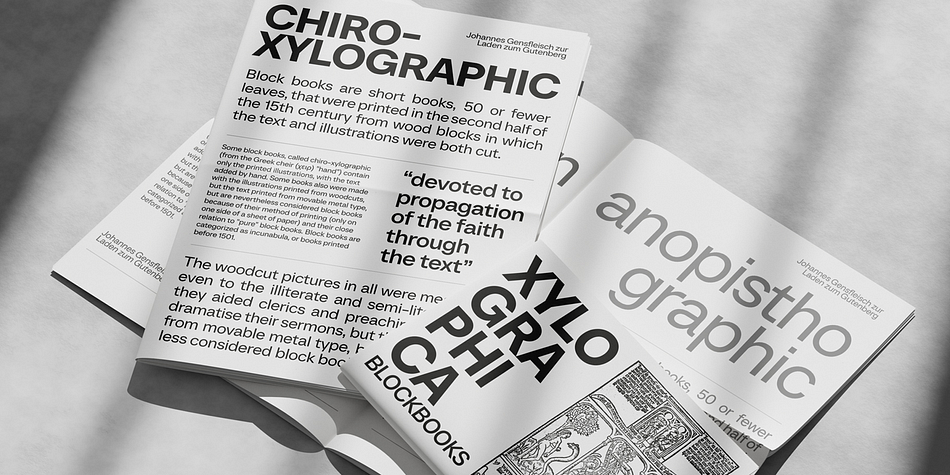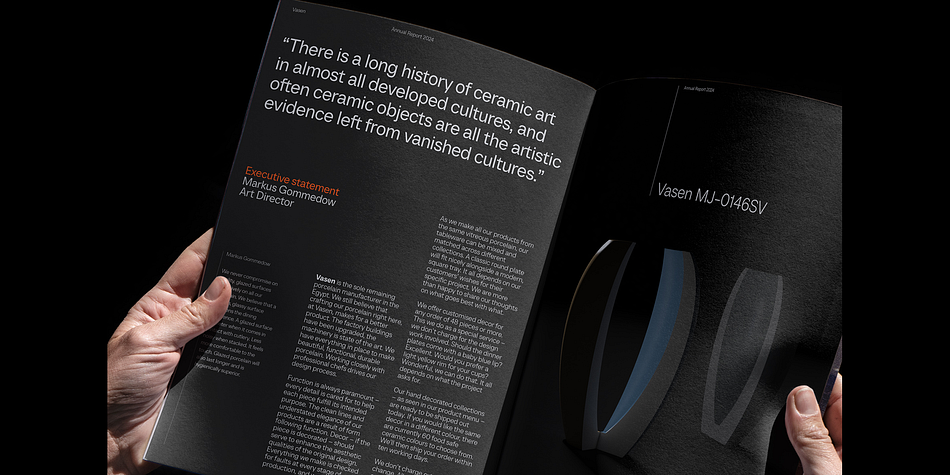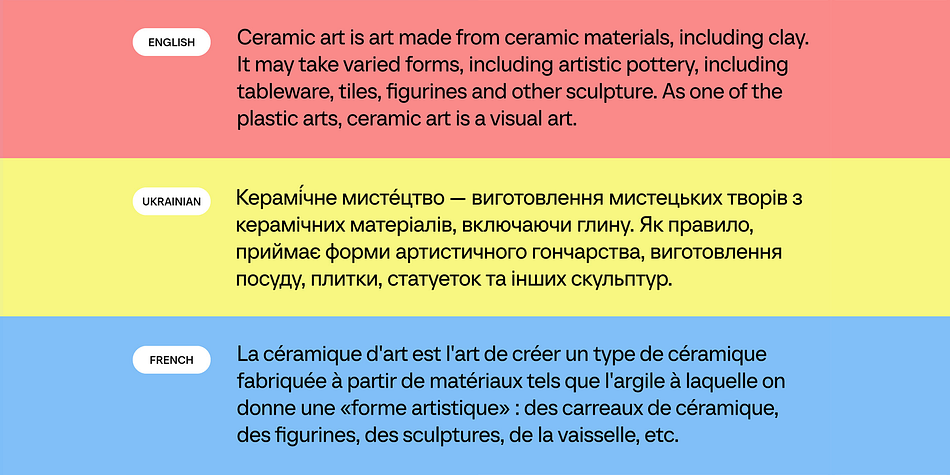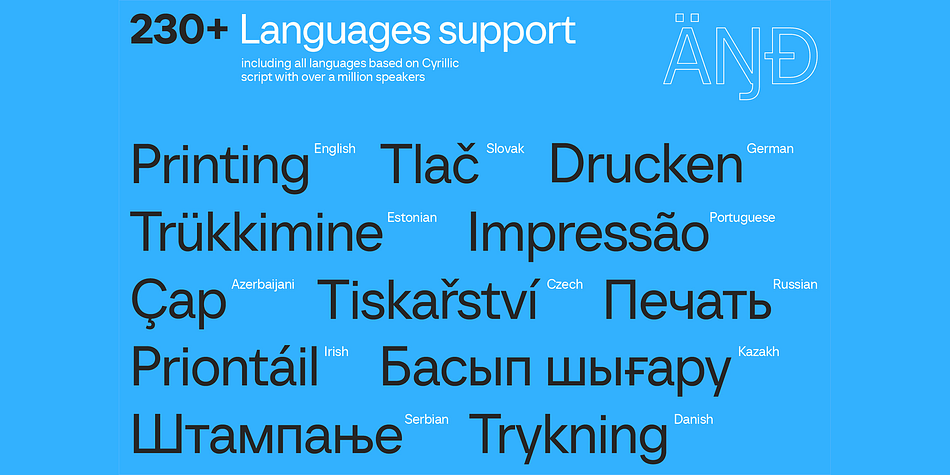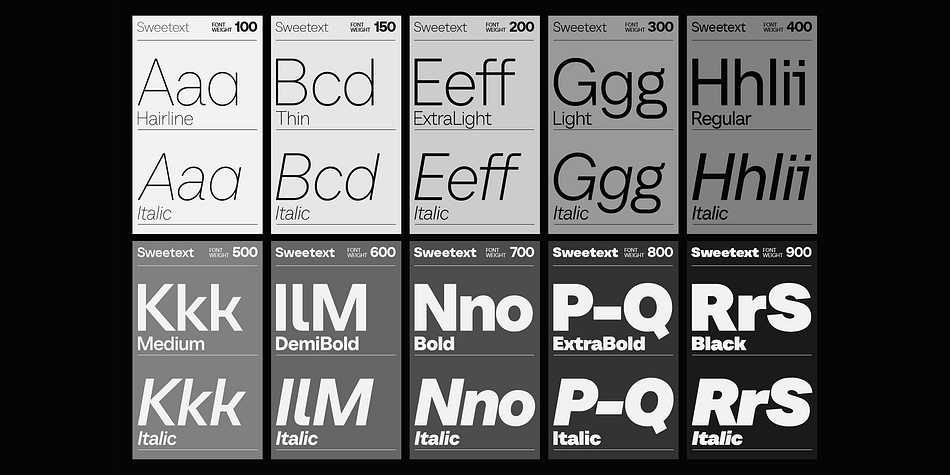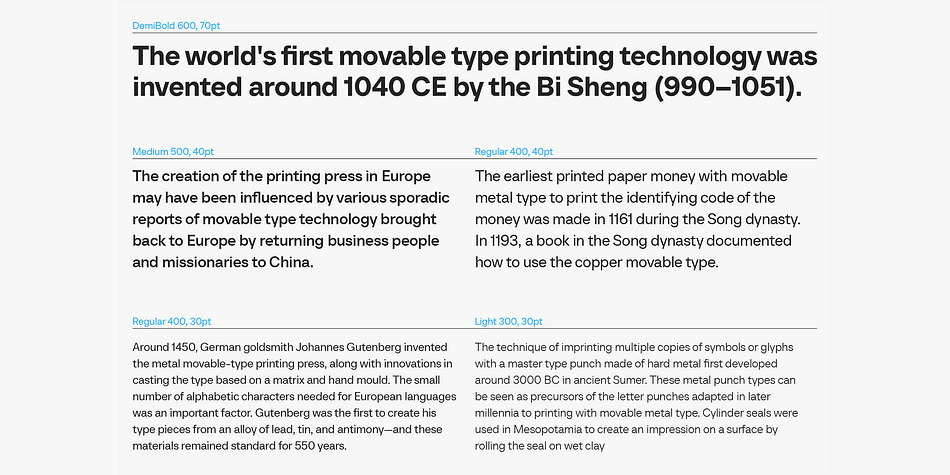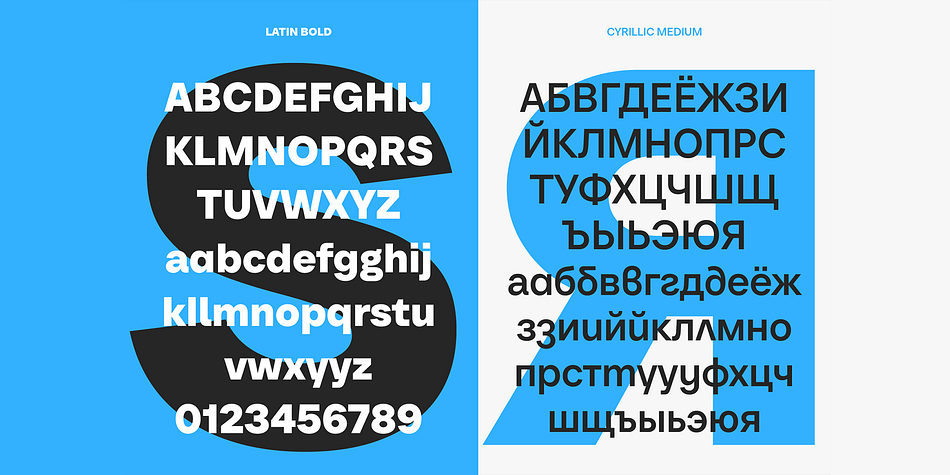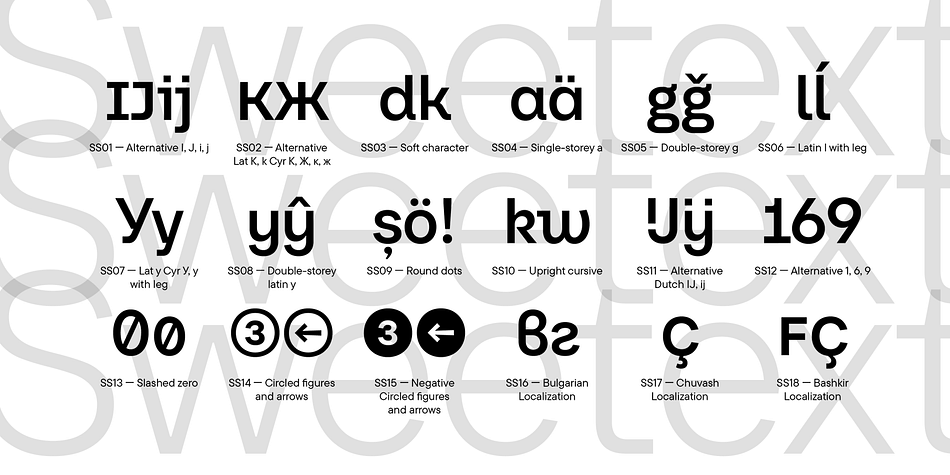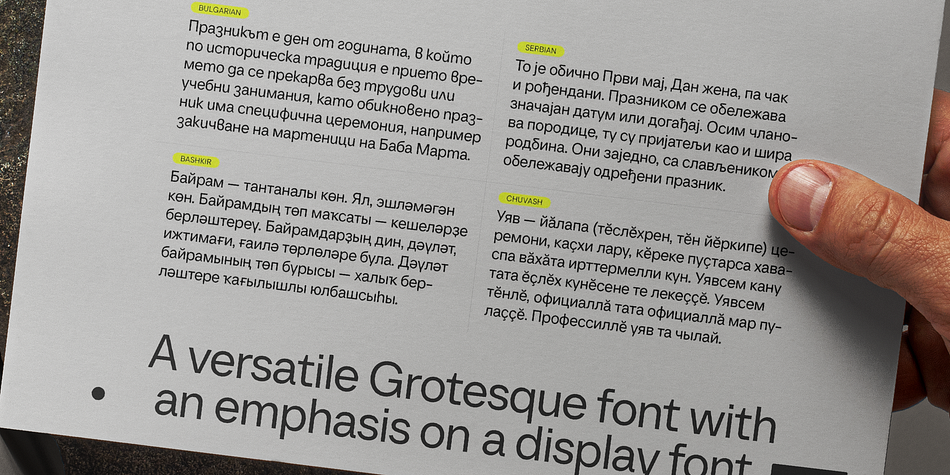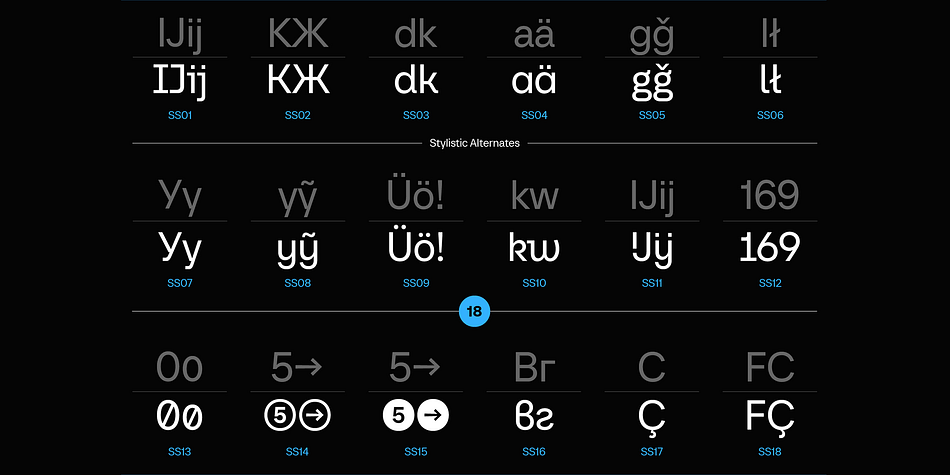
Sweetext
Sweetext is a sans serif font family. This typeface has twenty styles and was published by Concepta Digital.
Sweetext is a grotesk sans serif font that supports both Latin and Cyrillic characters, offering over 20 styles and 14 stylistic sets. With support for over 230 languages, Sweetext is perfect for any text-based project, from books and magazines to ads and brochures.
Its weight range from Hairline to Black ensures you’ll find the ideal weight for your needs. This clean and elegant display font enhances any material, making it look simply amazing.